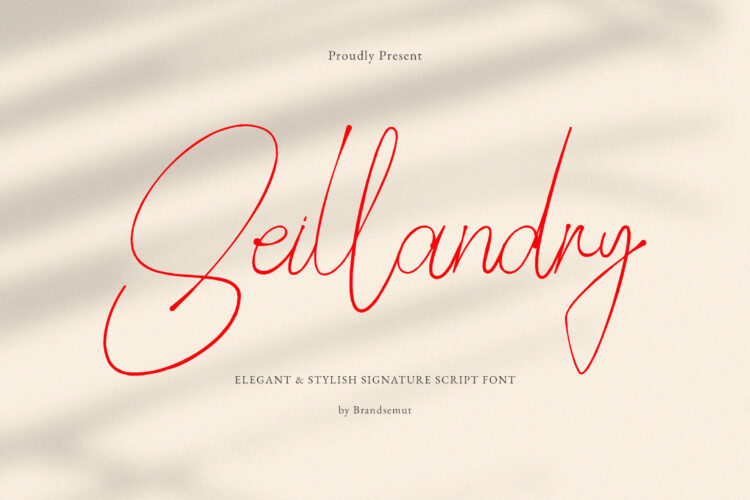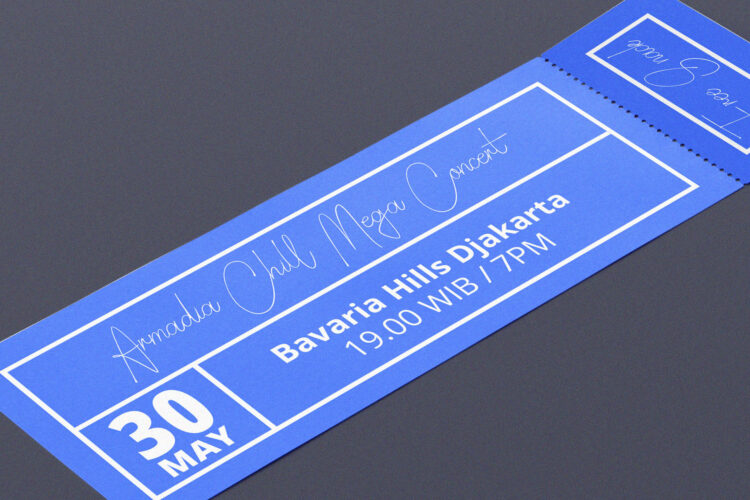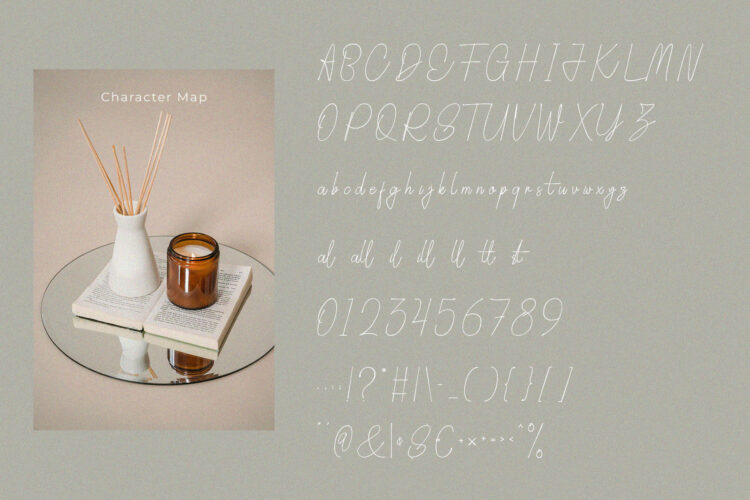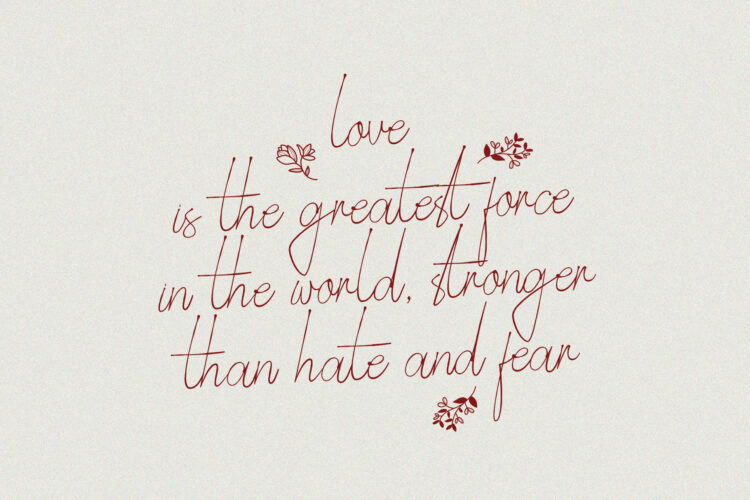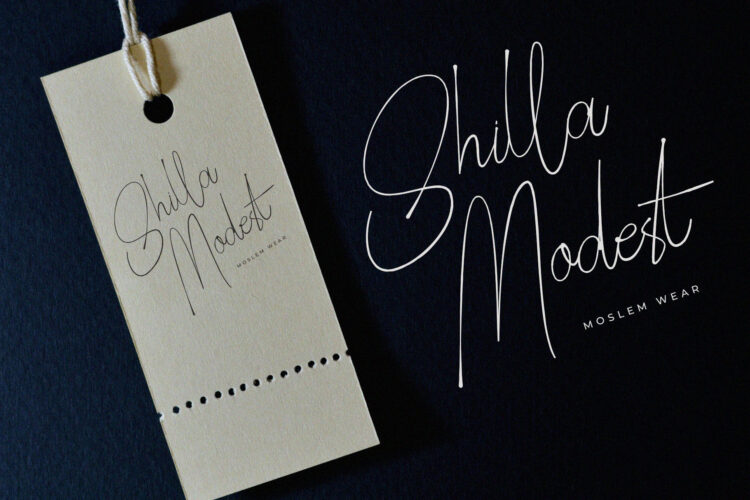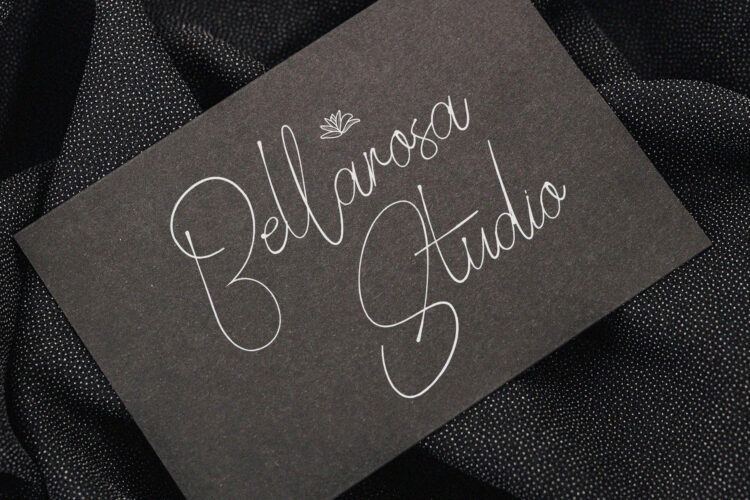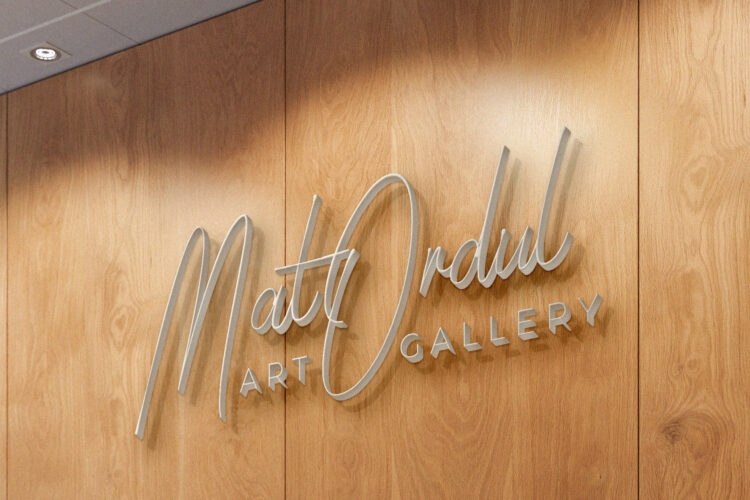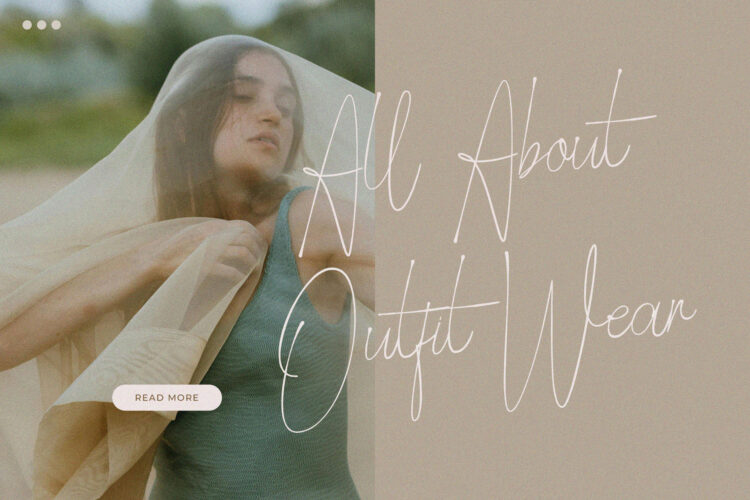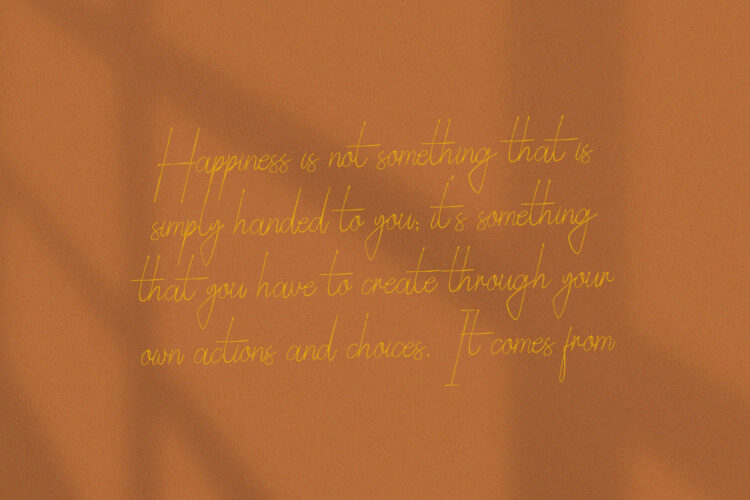
Introducing the new Seillandry Signature Font is a elegant and stylish handwritten script, that you can use to perfect your design.
You will get full set of lowercase and uppercase letters, multilingual, numerals and punctuation.
Seillandry – Modern Elegant Handwritten Font